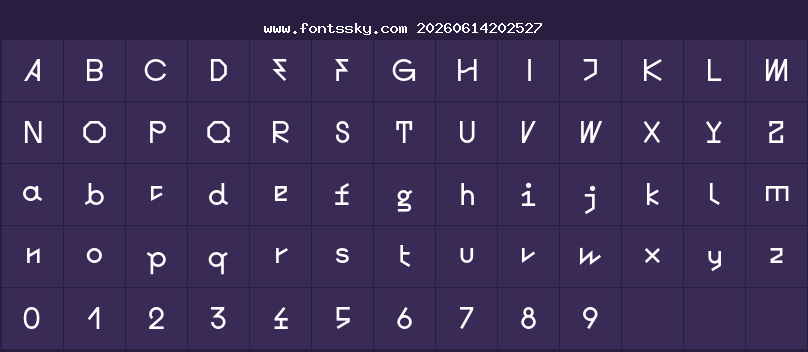
• Font Name: Heal The Web B
• Designer: Rainbow Unicorn & Jakub Kanior
• Manufacturer: Rainbow Unicorn
About Heal The Web B.otf
Heal The Web B.otf is a modern, elegant sans-serif font designed for ultimate readability and visual harmony. Perfect for branding, headlines, web design, and print materials.